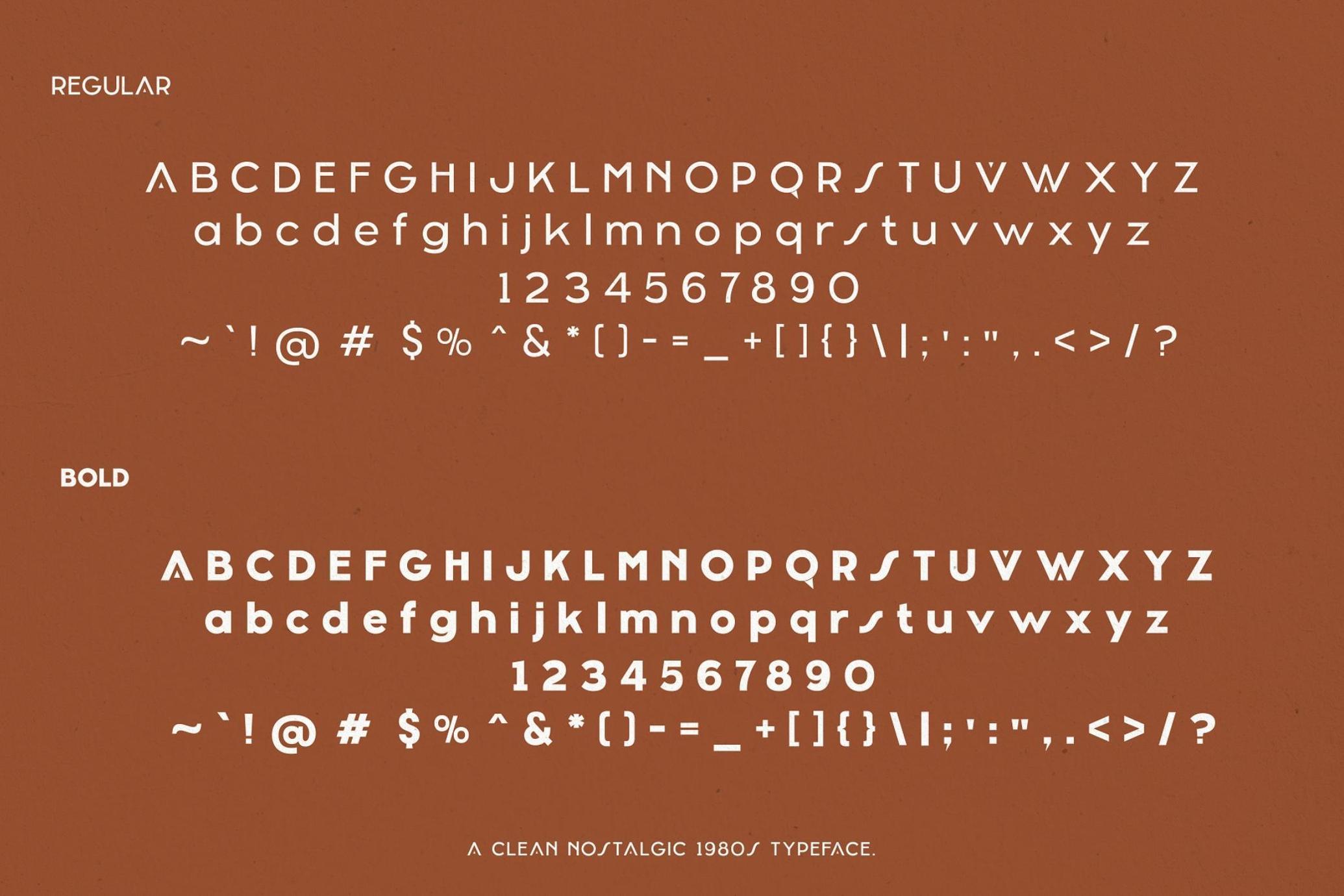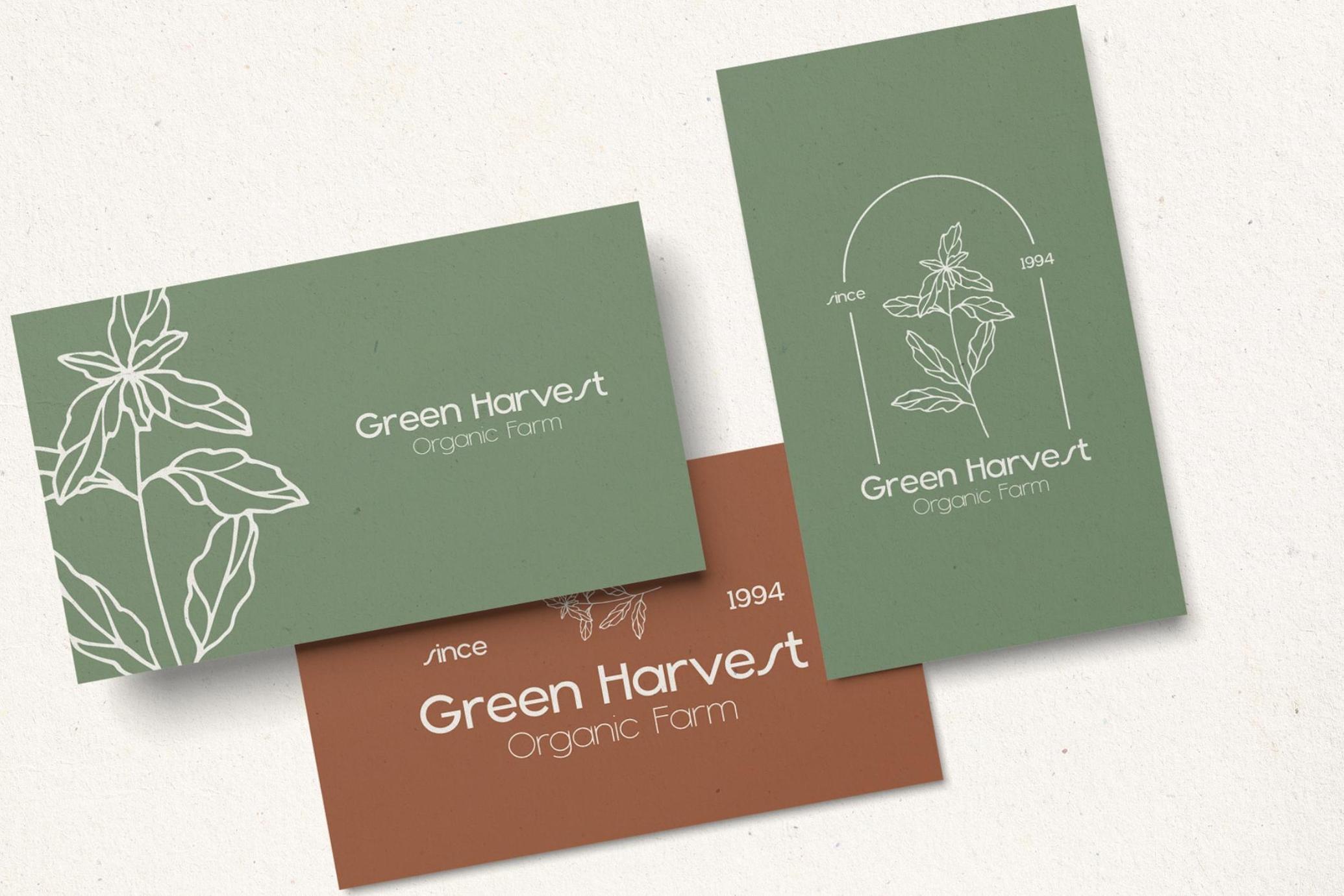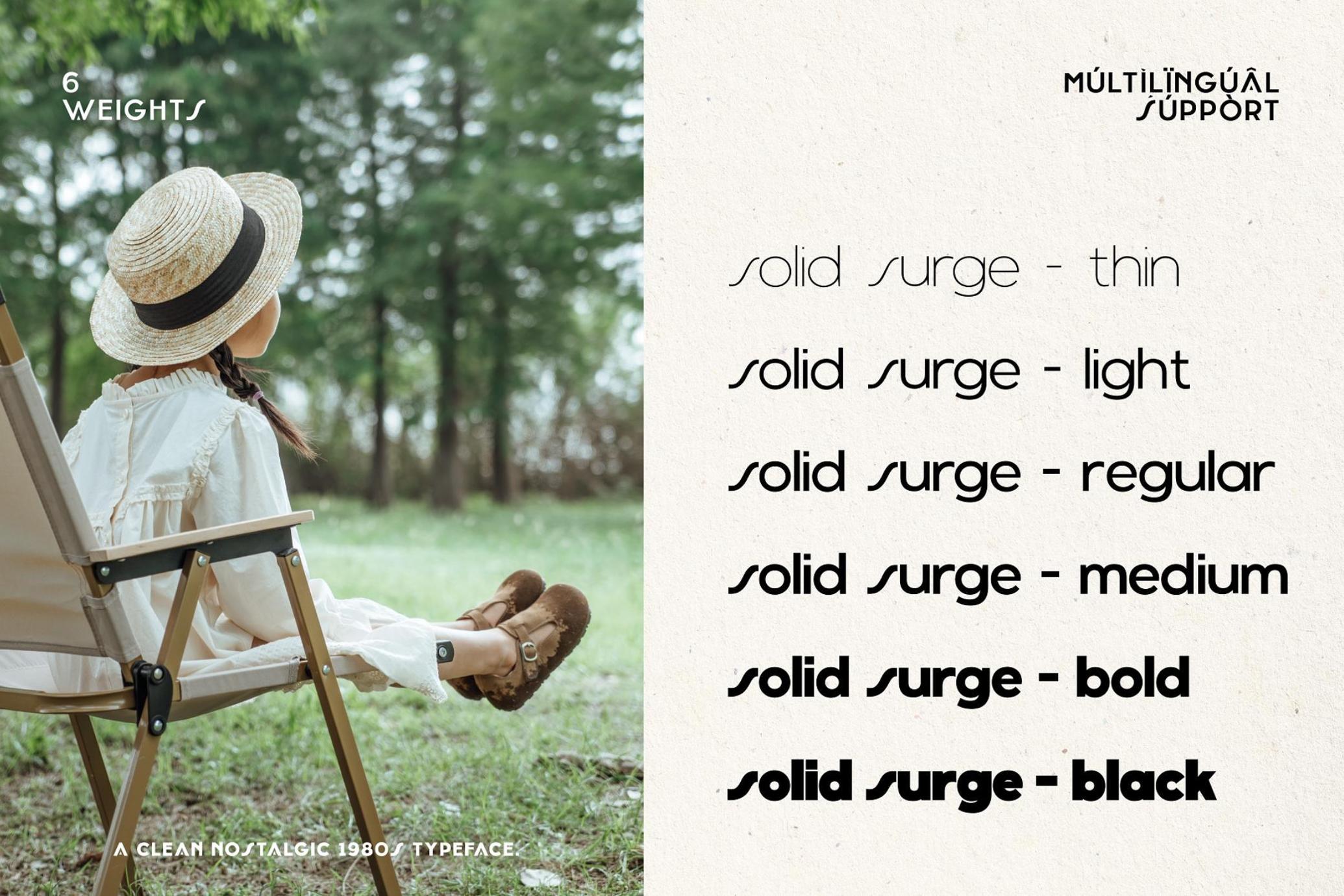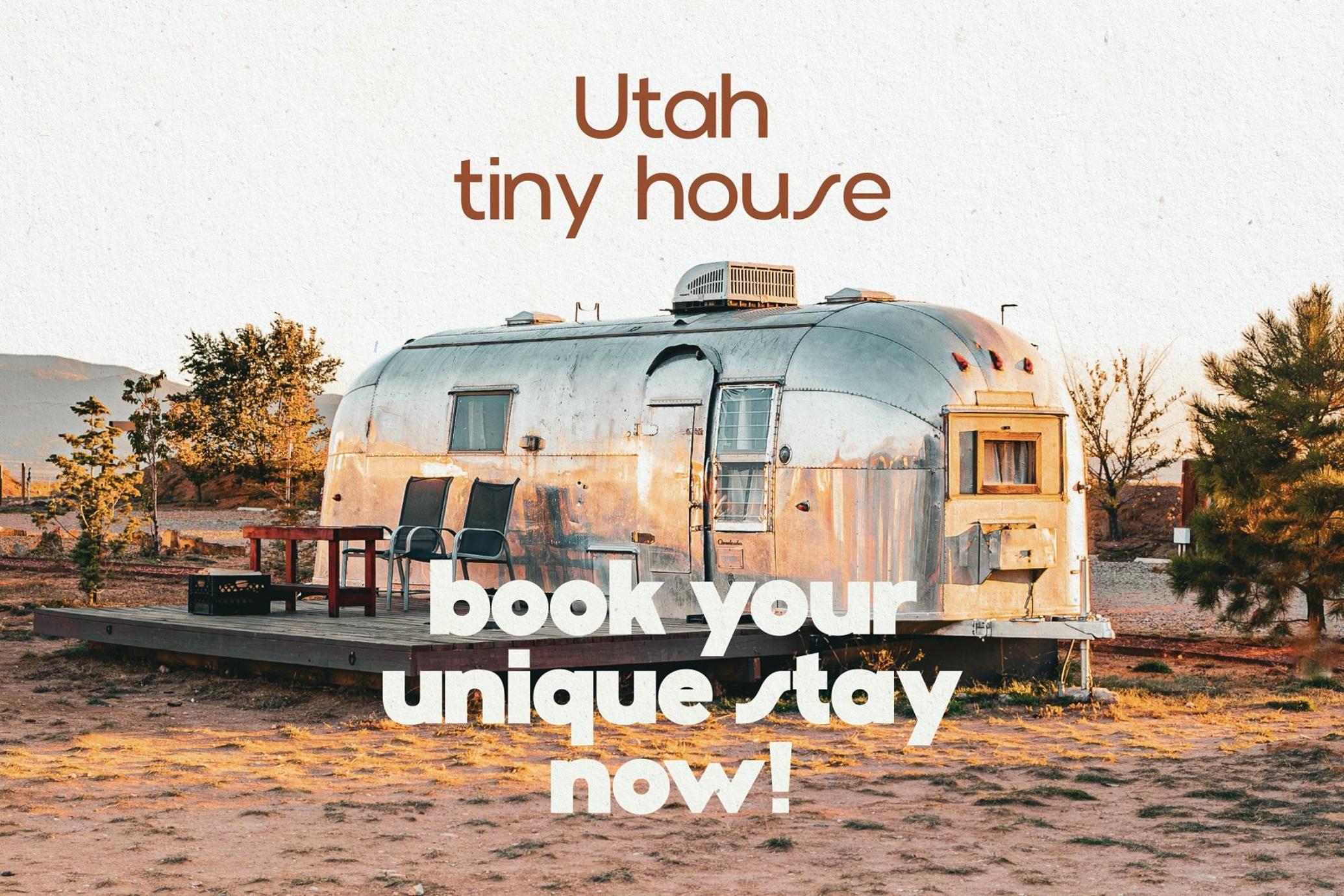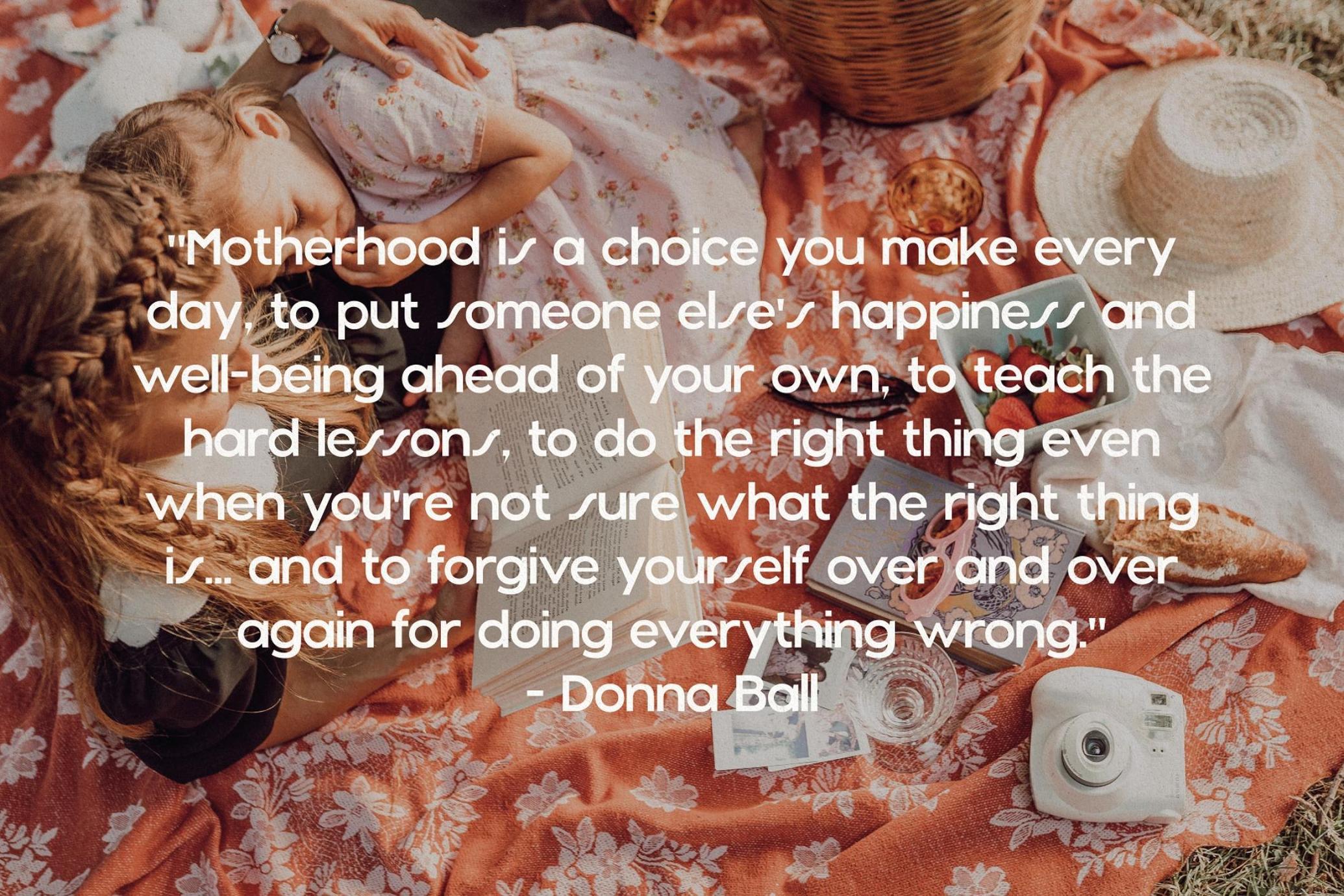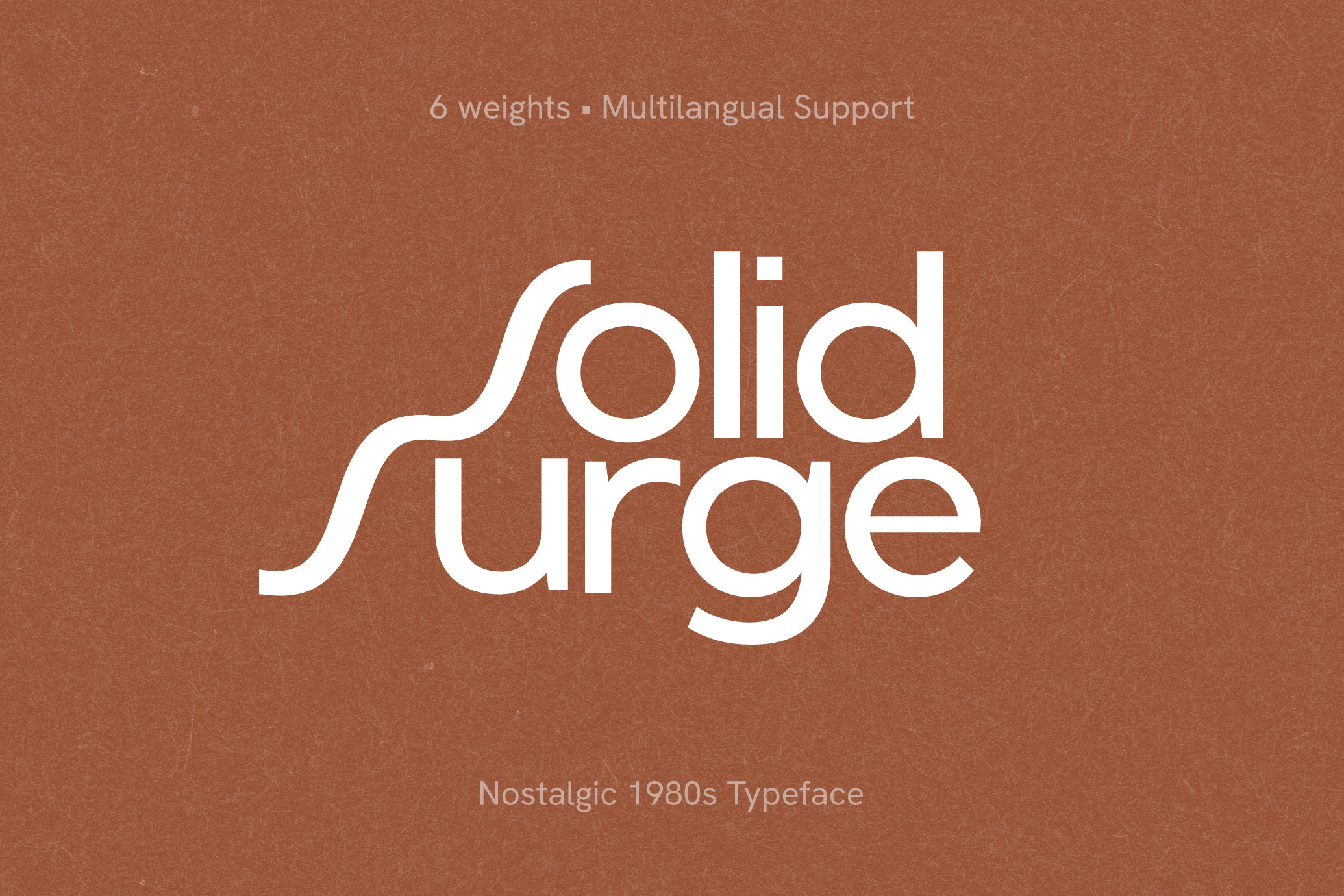
Solid Surge - Nostalgic 1980s Typeface
Unleash a tidal wave of nostalgia with Solid Surge! This typeface embodies the iconic essence of the 1980s, blending clean lines with a distinct retro vibe. Every curve and corner is meticulously crafted to transport you back to an era of neon lights, arcade games, and boomboxes.
But it's not just about looking back; Solid Surge also offers a modern twist, making it perfect for contemporary designs that require a touch of the past. Whether you're crafting a vintage poster, designing retro-inspired merchandise, or branding with a blast from the past, Solid Surge is your go-to font.